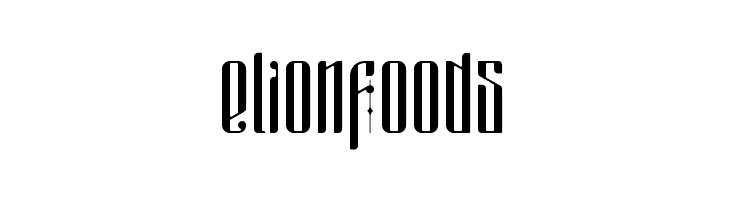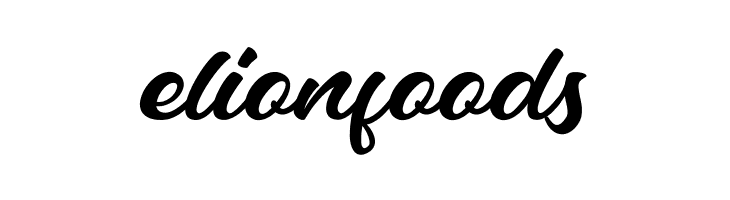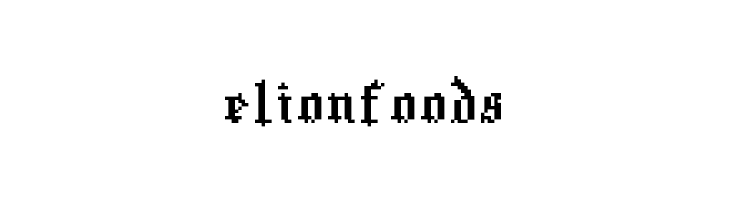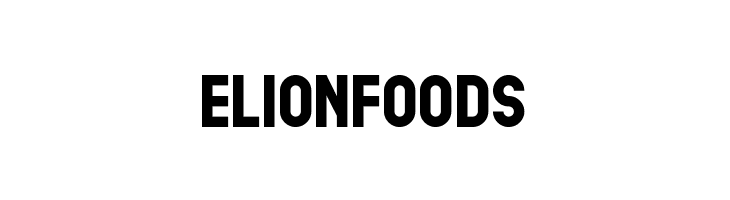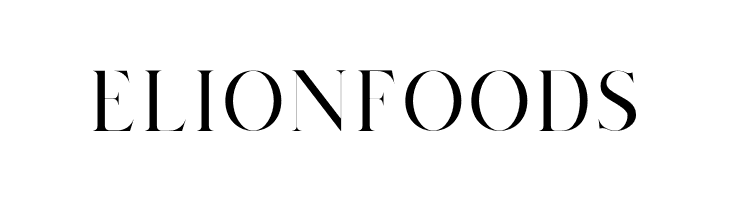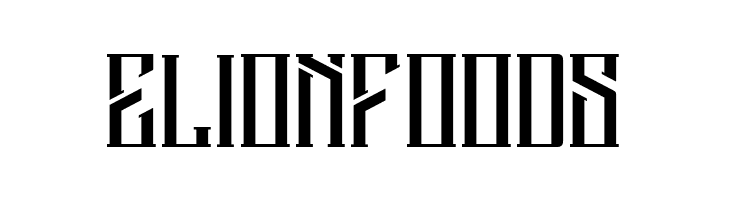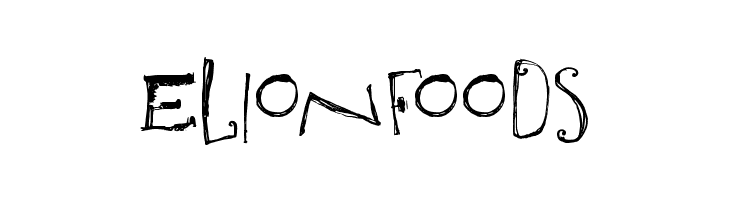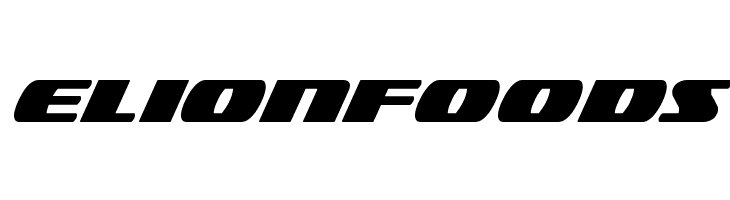
A dynamic and artistic cursive script with high contrast and fluid strokes.
A bold, angular font with high contrast and geometric elements.
A modern, decorative font with elongated, angular characters and high contrast.
A bold, cursive font with a smooth, flowing style.
A bold, intricate blackletter-style font with gothic and medieval influences.
A bold, modern font with thick strokes and high contrast.
A high-contrast, elegant serif font with sharp serifs and modern styling.
A bold, geometric font with high contrast and a Gothic-inspired style.
A decorative and whimsical font with intricate, hand-drawn elements.
A bold, expanded, and italicized font with a modern, dynamic style.